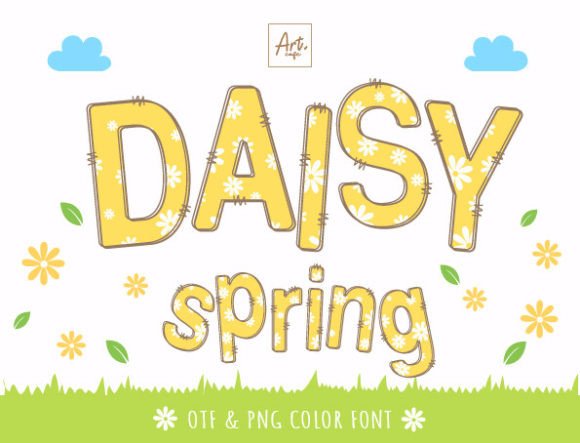
Daisy Spring Font: The Perfect Choice for Spring and Easter Designs
As the seasons change and spring arrives, it’s the perfect time to refresh your design projects with a new and exciting font. If you’re looking for a font that’s bold, cute, and suitable for kids, then the Daisy Spring Font is an excellent choice. In this article, we’ll explore the features and benefits of this font, and how it can be used for various design projects.
What is Daisy Spring Font?
Daisy Spring Font is a bold and adorable font that’s perfect for spring and Easter-themed designs. It’s a display font that offers support for all characters of the English language, making it versatile and easy to use. The font comes in two versions: a black version and a color version. The black version is compatible with Cricut Design Space and other cutting machines, while the color version is compatible with certain design programs, including PhotoShop, Illustrator, Silhouette, and Inkscape.
Features of Daisy Spring Font
- Bold and eye-catching: The Daisy Spring Font is a bold font that’s sure to grab attention. Its boldness makes it perfect for headlines, titles, and other design elements that need to stand out.
- Cute and playful: The font has a playful and cute design that’s perfect for kids’ projects, Easter, and spring-themed designs.
- Support for all English characters: The font offers support for all characters of the English language, making it easy to use for various design projects.
Benefits of Using Daisy Spring Font
The Daisy Spring Font offers several benefits for designers and crafters. Here are a few:
- Easily create eye-catching designs: The font’s boldness and cuteness make it easy to create eye-catching designs that grab attention.
- Perfect for kids’ projects: The font’s playful design makes it perfect for kids’ projects, such as coloring pages, activity sheets, and more.
Using Daisy Spring Font for Design Projects
The Daisy Spring Font can be used for a wide range of design projects, including:
- Posters: Create eye-catching posters for spring and Easter events, or for promoting products.
- T-shirts: Design custom t-shirts for kids and adults with the Daisy Spring Font.
- Mugs: Create personalized mugs with the font for a unique gift or promotional item.
- Kids’ projects: Use the font for kids’ projects, such as coloring pages, activity sheets, and more.
- Planners: Design custom planners and organizers with the font for a personal touch.
- Stickers: Create custom stickers with the font for labeling and decorating.
- Home decor: Use the font to create custom home decor items, such as wall art and signs.
Tips for Using Daisy Spring Font
Here are some tips for using the Daisy Spring Font:
- Experiment with colors: The font’s color version allows you to experiment with different colors and designs.
- Pair with other fonts: Pair the Daisy Spring Font with other fonts to create a unique and interesting design.
- Use for headlines and titles: The font’s boldness makes it perfect for headlines and titles.
The black version of the Daisy Spring Font is compatible with Cricut Design Space and other cutting machines. This makes it easy to cut out designs and shapes with the font. However, the color version of the font is not compatible with Cricut Design Space. For more information on how to use the font with Cricut and other cutting machines, check out our Ultimate Font Guide.
| Font Name | Daisy Spring Font |
| Author | Art cafe |
The Daisy Spring Font is a bold, cute, and versatile font that’s perfect for spring and Easter-themed designs. Its compatibility with various design programs and cutting machines makes it easy to use for a wide range of design projects. Whether you’re a designer, crafter, or DIY enthusiast, the Daisy Spring Font is an excellent choice for your next project.
- What is the Daisy Spring Font? The Daisy Spring Font is a bold and adorable font that’s perfect for spring and Easter-themed designs.